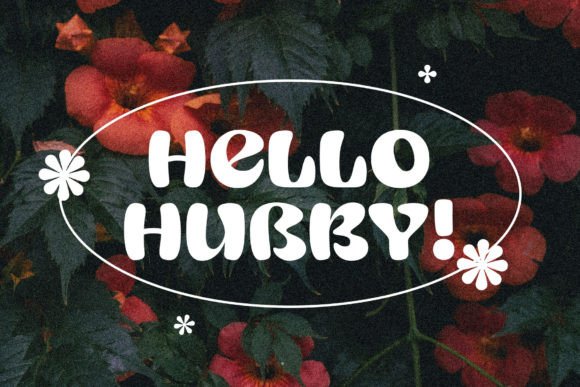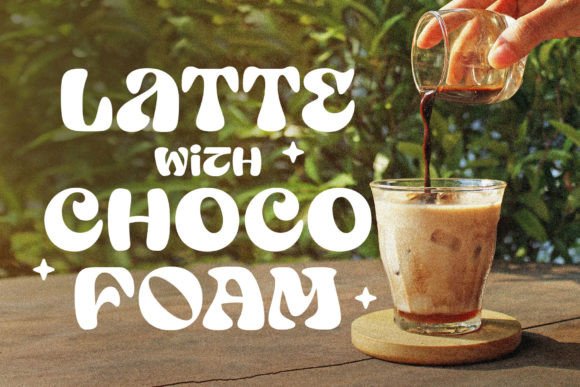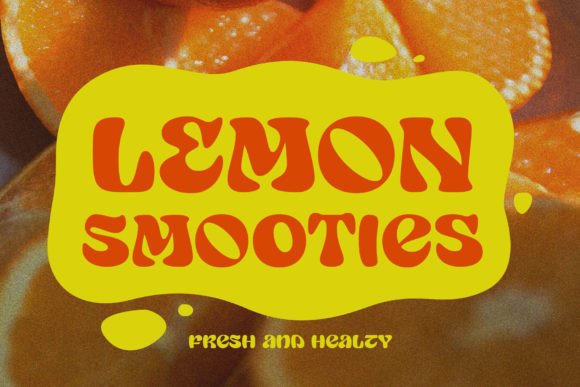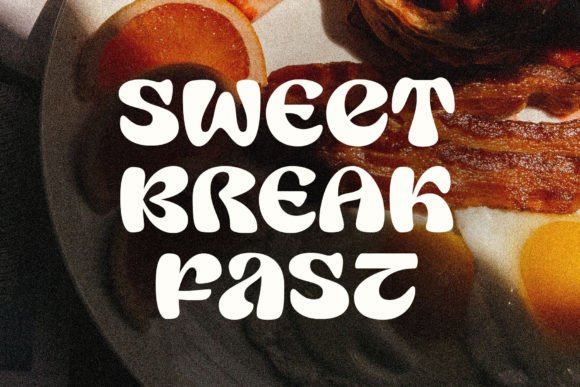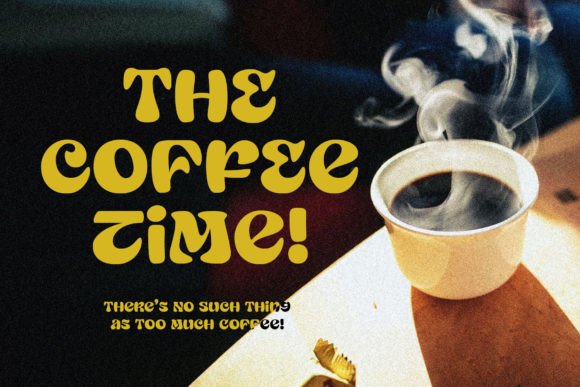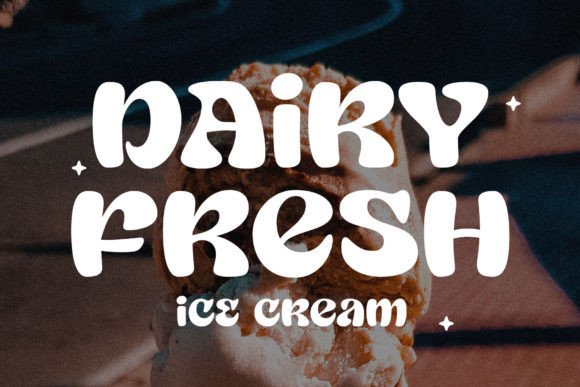
Introduction to Nueva Garcia Font
Say hello to the Nueva Garcia font.
A bold and playful typeface, this font combines retro groovy and psychedelic styles Its slightly ‘quirky’ shape adds a unique charm, making it perfect for use in displays or titles.
Key Features of Nueva Garcia Font